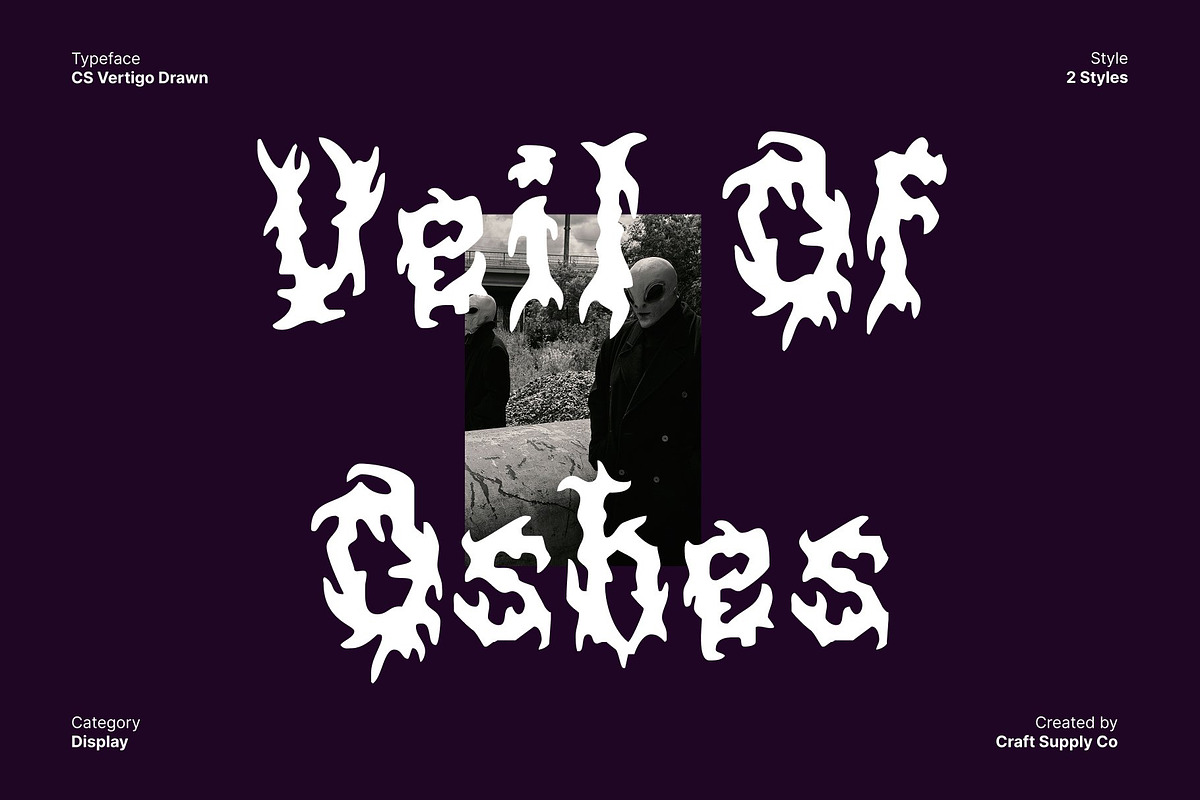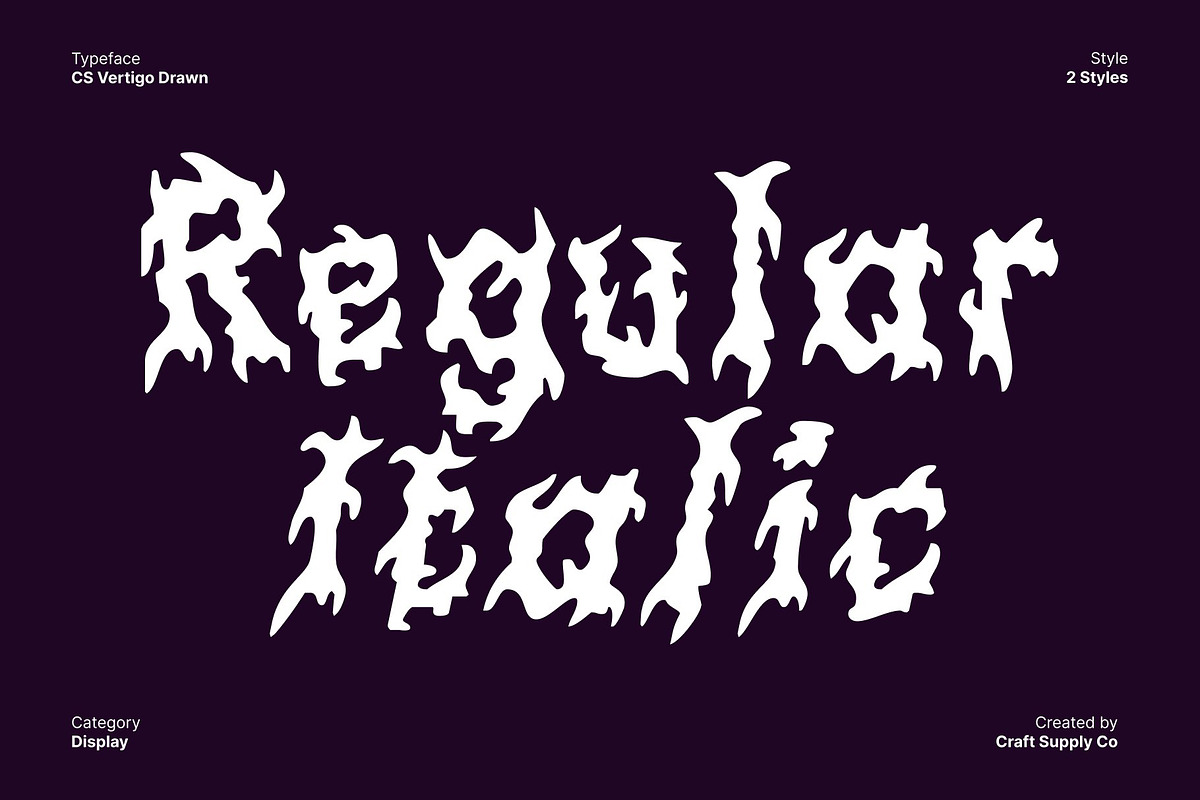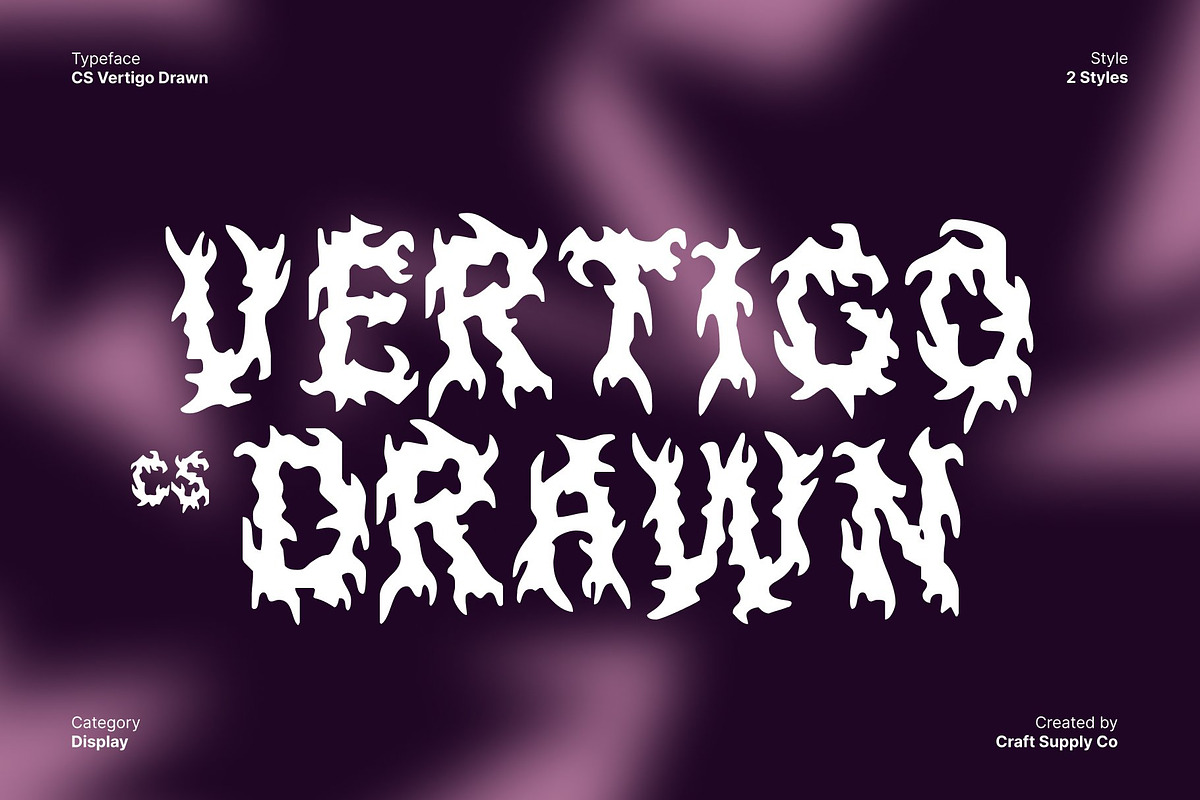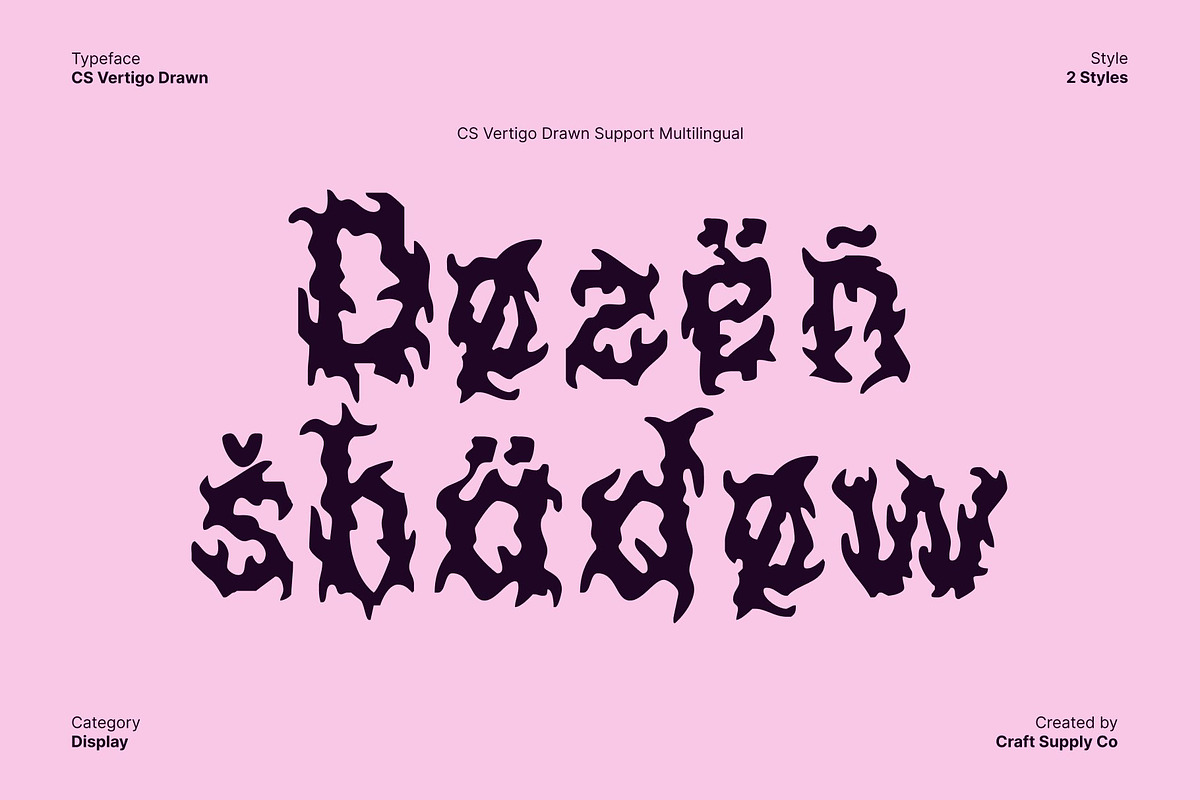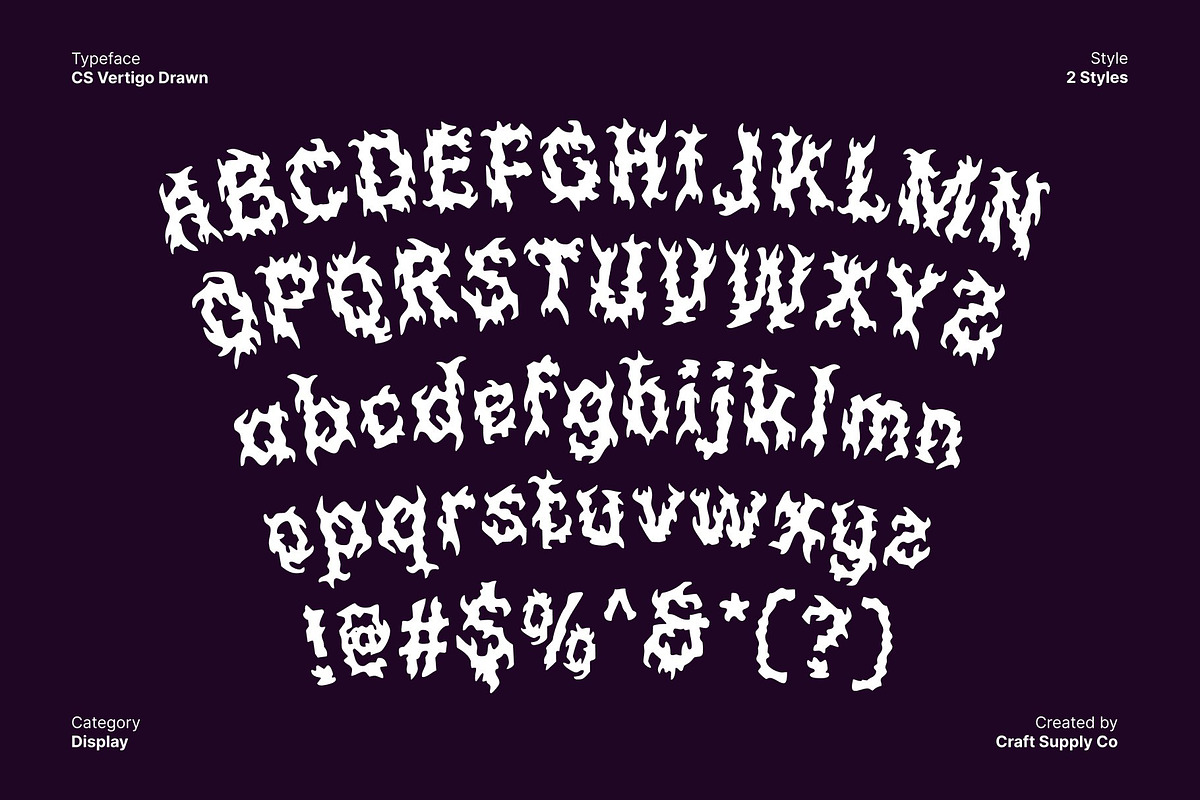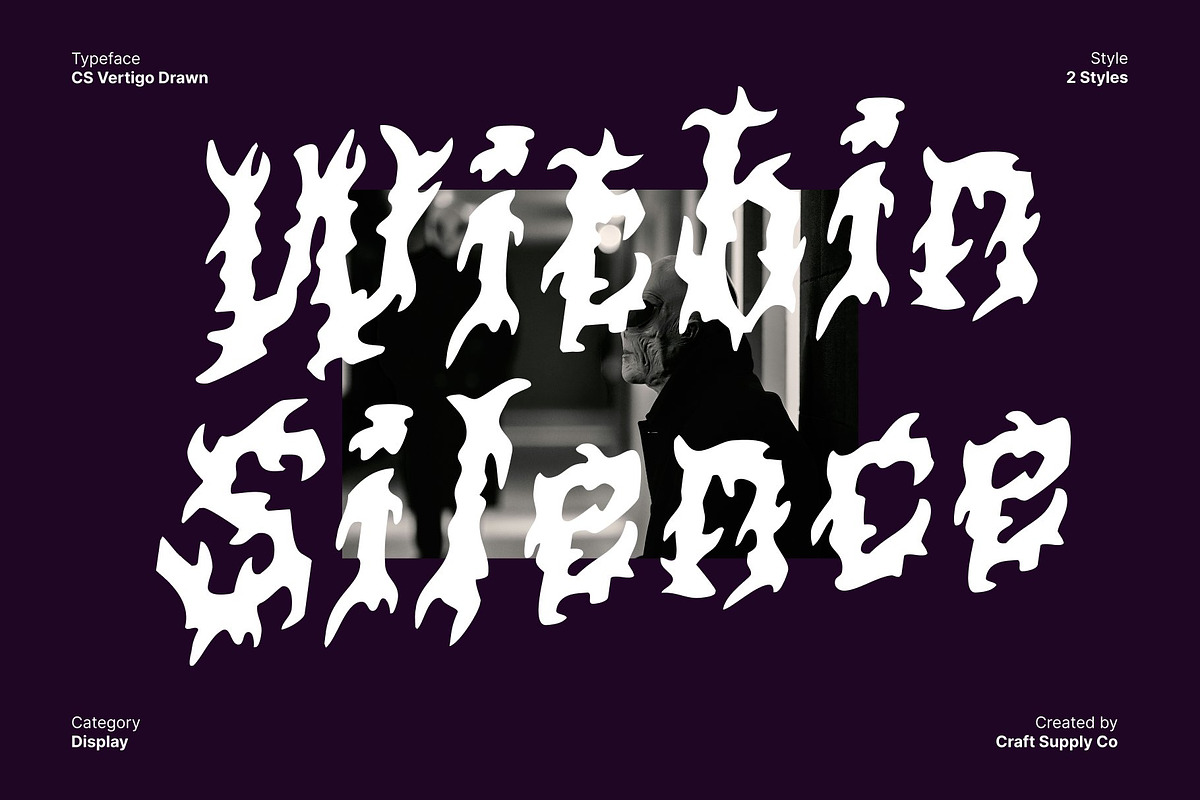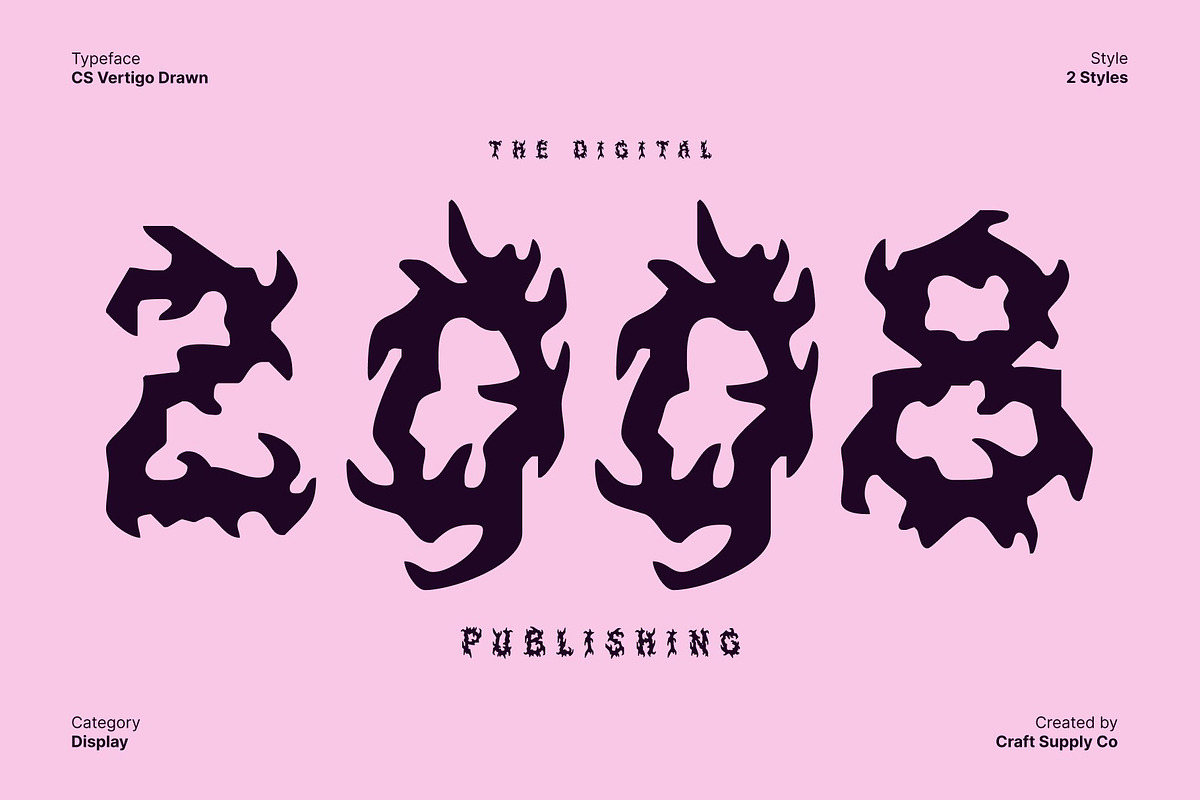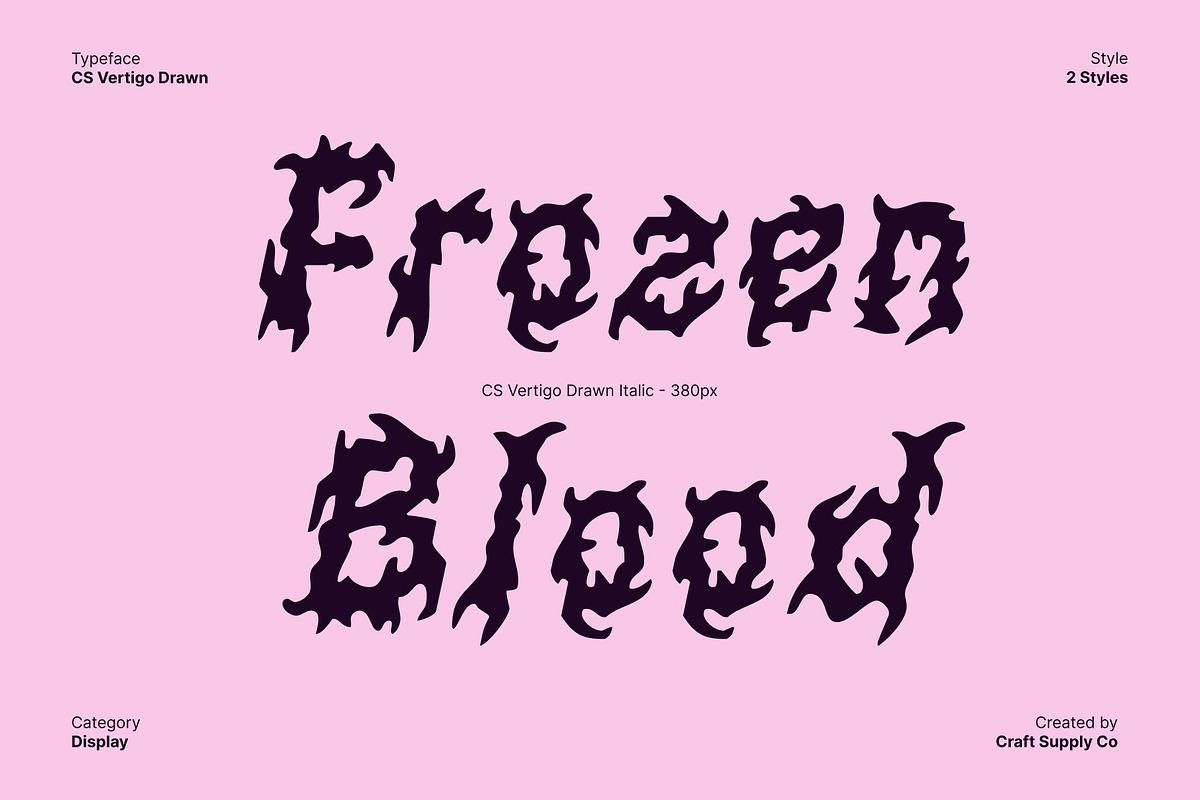
CS Vertigo Drawn
CS Vertigo Drawn – Black Metal Font with Chaotic Texture
Aggressive and Raw Display This is a striking black metal display font designed to convey raw power and intense energy. Its jagged spikes, sharp angles, and chaotic strokes create a sense of darkness and rebellion, making it perfect for band logos, album covers, posters, or any edgy design that demands impact. The bold, aggressive forms immediately grab attention, embodying the spirit of extreme music and underground aesthetics.
Hand-Drawn Texture for Expressive Impact The drawn effect adds a handcrafted, artistic quality to this font, enhancing its chaotic and visceral character. Irregular lines and organic textures give the font a dynamic, unpredictable feel, reinforcing its raw intensity. Each letter seems alive with energy, making every composition feel powerful and distinctive.
Intense and Dramatic Letterforms With its sharp, jagged shapes and striking contrasts, balances readability with expressive aggression. The font’s dramatic forms ensure that headlines, logos, or posters deliver maximum visual impact while staying true to the extreme metal aesthetic.
Versatile for Extreme Design Applications This font works seamlessly across print and digital media for projects that require an edgy, rebellious typographic voice. From music branding and posters to merchandise and creative editorial layouts, this font captures darkness, intensity, and artistic chaos, leaving a lasting impression in every design.
- CS Vertigo Drawn Regular
- CS Vertigo Drawn Italic